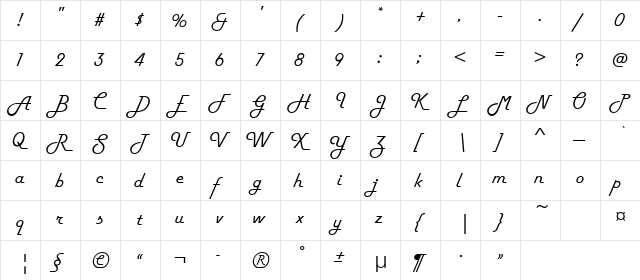
American Retro Regular
| Foundry | Gophmann A.L. |
| Designer | Gophmann A.L. (rusifikation) |
Design Context for American Retro Typeface
American Retro has the warm character of retro typography — evoking diners, record sleeves, and the golden age of print advertising.
Font Pairing: Combine American Retro with a simple slab or neutral sans — period-accurate companions reinforce the vintage feel without competing for attention.
Pro Tip: Lean into American Retro's period character by pairing it with aged paper textures, muted colour palettes, and vintage illustration styles.